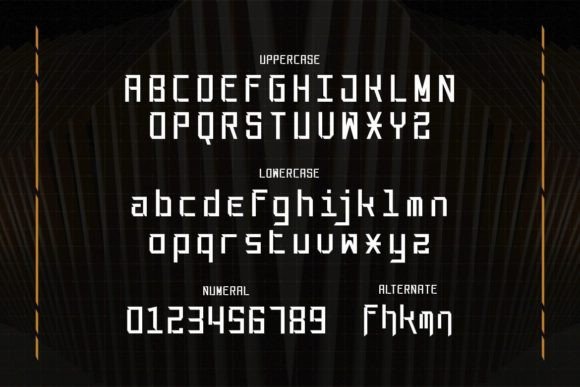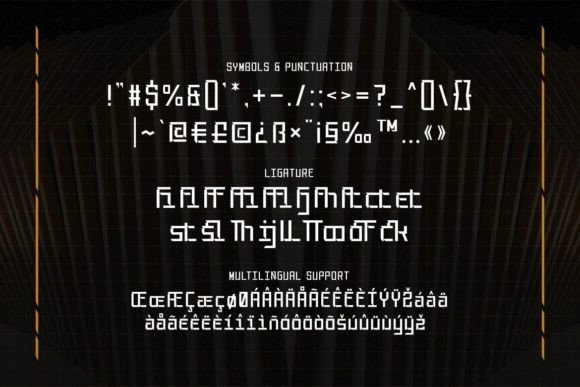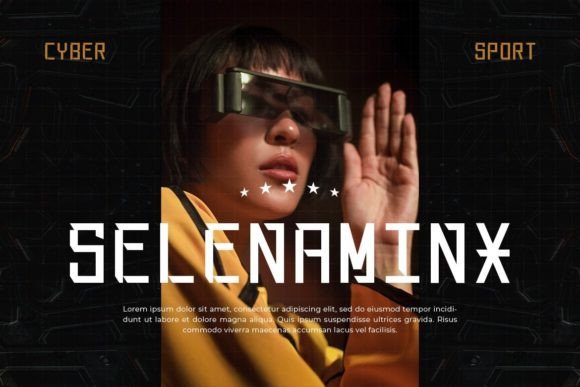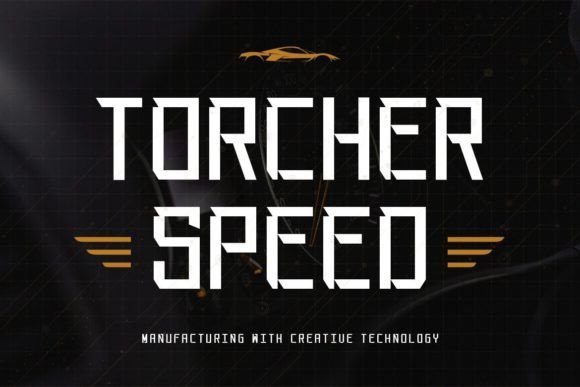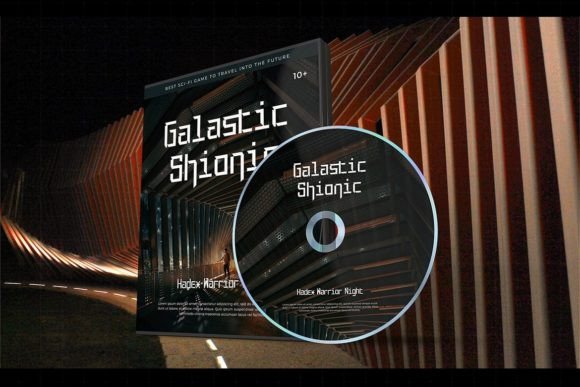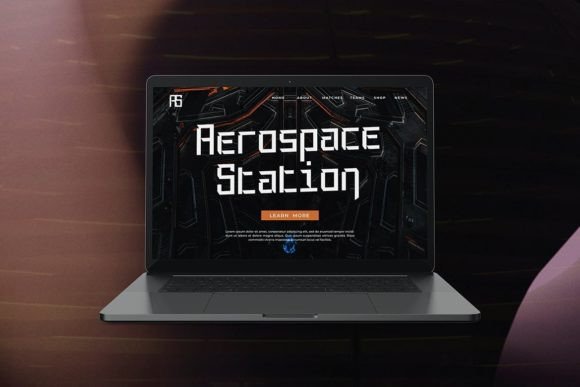
Unleash Your Creativity with Demonic Font: A Unique Monospace Display Font
Are you tired of using the same old fonts in your designs? Look no further! Introducing Demonic, a breathtaking monospace display font that’s perfect for a wide variety of creative projects. With its unique and striking design, Demonic is sure to make your designs stand out from the crowd.
What Makes Demonic Font So Special?
Demonic is a monospace display font, which means that each character has the same width, creating a uniform and cohesive look. This font is perfect for designers, crafters, and artists who want to add a touch of elegance and sophistication to their work. Whether you’re creating a logo, a poster, a website, or a digital art piece, Demonic is the perfect choice.
Key Features of Demonic Font
- Unique and Breathtaking Design: Demonic has a one-of-a-kind design that’s sure to grab attention.
- Monospace Display Font: Each character has the same width, creating a uniform and cohesive look.
- Wide Range of Uses: Demonic is perfect for a wide variety of designs, including logos, posters, websites, digital art, and more.
- Logos and Branding: Use Demonic to create a unique and memorable logo for your business or brand.
- Posters and Flyers: Add a touch of elegance and sophistication to your posters and flyers with Demonic.
- Websites and Digital Art: Use Demonic to add a unique and striking element to your website or digital art piece.
Benefits of Using Demonic Font
So why choose Demonic for your designs? Here are just a few benefits of using this amazing font:
- Stand Out from the Crowd: With its unique and striking design, Demonic is sure to make your designs stand out from the crowd.
- Versatile: Demonic is perfect for a wide variety of designs, from logos and posters to websites and digital art.
In conclusion, Demonic is a unique and breathtaking monospace display font that’s perfect for designers, crafters, and artists who want to add a touch of elegance and sophistication to their work. With its PUA encoding and wide range of uses, Demonic is the perfect choice for anyone looking to create stunning designs. So why wait? Download Demonic today and unleash your creativity!